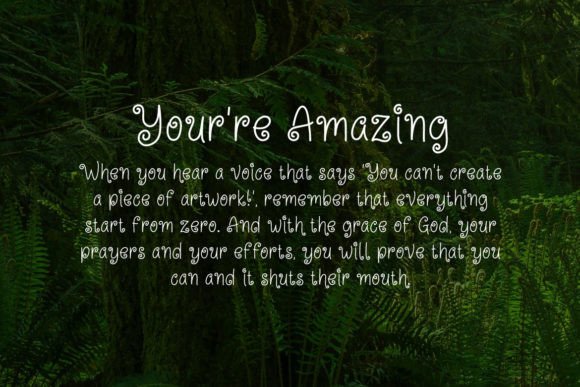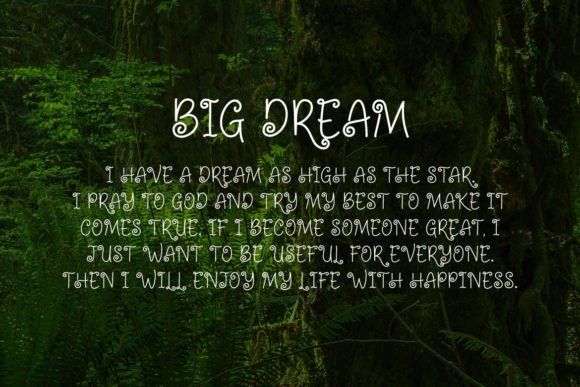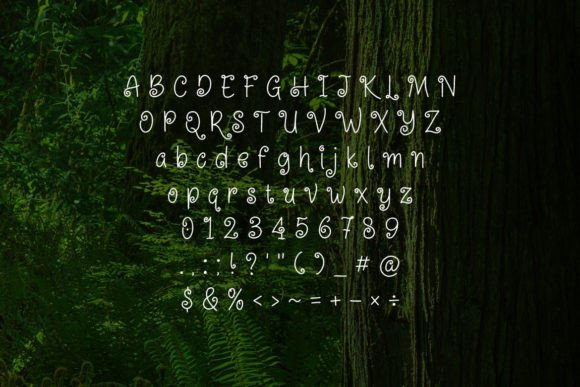
Bear Shoot Font: Add a Touch of Whimsy to Your Designs
In the world of typography, fonts play a crucial role in conveying the tone and personality of a design. If you’re looking for a font that can add a dash of fun and quirkiness to your creations, look no further than Bear Shoot Font. This handwritten font is perfect for designers and crafters who want to elevate their designs and make them stand out from the crowd.
What is Bear Shoot Font?
Bear Shoot Font is a fun and quirky handwritten font that is sure to capture the attention of your audience. With its unique and playful style, this font is perfect for a wide range of design projects, from invitations and greeting cards to posters and social media graphics. Whether you’re designing for a client or working on a personal project, Bear Shoot Font is an incredible asset to have in your font library.
Characteristics of Bear Shoot Font
So, what makes Bear Shoot Font so special? Here are just a few of its key characteristics:
- Handwritten style: Bear Shoot Font has a charming, handwritten style that gives it a personal and approachable feel.
- Unique and quirky: This font is not your average, run-of-the-mill font. Its quirky style is sure to add a touch of whimsy to your designs.
- Versatile: Despite its playful style, Bear Shoot Font is incredibly versatile and can be used for a wide range of design projects.
- Easy to read: Despite its quirky style, Bear Shoot Font is easy to read, making it perfect for designs where you need to communicate a message.
Uses for Bear Shoot Font
So, what can you use Bear Shoot Font for? The possibilities are endless! Here are just a few ideas to get you started:
- Invitations and greeting cards: Add a touch of whimsy to your invitations and greeting cards with Bear Shoot Font.
- Posters and flyers: Use Bear Shoot Font to create eye-catching posters and flyers that will grab the attention of your audience.
- Social media graphics: Add some personality to your social media graphics with Bear Shoot Font.
- Branding and packaging: Use Bear Shoot Font to create unique and memorable branding and packaging for your clients or business.
Why Choose Bear Shoot Font?
So, why should you choose Bear Shoot Font for your design projects? Here are just a few reasons:
- Stand out from the crowd: With Bear Shoot Font, you can create designs that stand out from the crowd and grab the attention of your audience.
- Add personality to your designs: This font is perfect for adding a touch of personality and whimsy to your designs.
In conclusion, Bear Shoot Font is a fun and quirky handwritten font that is perfect for designers and crafters who want to add a touch of whimsy to their designs. With its unique and playful style, this font is sure to elevate any creation and make it stand out from the crowd. Whether you’re designing for a client or working on a personal project, Bear Shoot Font is an incredible asset to have in your font library.